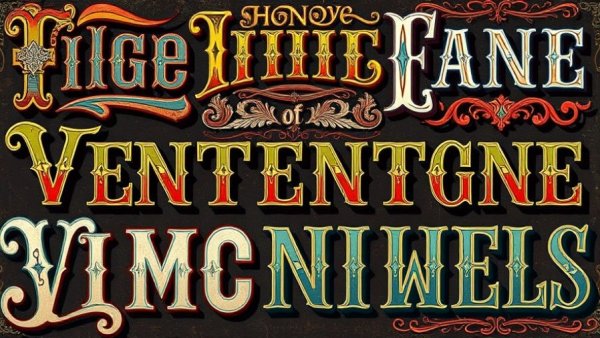
Unlock the Artistry of Vintage Fonts: Tips for Graphic Designers
Discover the Timeless Charm of Vintage Fonts
In today’s fast-paced digital world, the allure of vintage fonts remains strong. Graphic designers often seek ways to invoke nostalgia and charm in their projects, and nothing does this quite like the carefully crafted vintage typefaces from the Heritage Type Co. These fonts are not just designs; they evoke a rich history that appeals to clients wanting to stand out in a crowded market.
What Makes Vintage Fonts Essential?
The Vintage Font Bundle from Heritage Type Co. captures the heart of late 19th to early 20th-century typography, expertly crafted by artist Tobias Saul. These fonts aren't just beautiful; they come with an array of features such as alternate characters and ornamental graphics, which designers can mix and match to fit any creative vision. Whether for a bespoke wedding invitation or a unique business logo, the right vintage typeface can add personality and warmth to your designs.
Fonts in the Bundle
The bundle includes six distinct typefaces, each offering unique style elements:
1. Blackriver: Drawn from vintage packaging designs, creating an instant nostalgic feel.
2. Royal Signage: Inspired by vintage signage that was once a staple in city streets.
3. Old Alfie and Old Erika: Victorian-inspired fonts which pair elegantly together.
4. Brilon: Echoing the Art Deco period, perfect for a trendy touch.
5. Mirosa: A versatile font that boasts over 400 alternate characters for endless creative possibilities.
Get Creative with Logo Design
The Vintage Font Bundle doesn’t just stop at fonts. It comes with 25 ready-made logo templates and layouts tailored specifically for Adobe Illustrator, as well as over 200 ornamental elements that provide even further customization options. Designers can quickly create stunning visuals, whether for branding campaigns, product packaging, or digital media needs. As any seasoned graphic designer knows, having the right tools at your disposal can make all the difference in the creative process.
Craft Your Own Custom Artwork
If you want to see the fonts in action, check out Tobias Saul's tutorial on crafting ornate logos from start to finish. This step-by-step guide demonstrates how to use the Royal Signage and Old Erika fonts, incorporating various ornamental graphics. Not only does this provide a roadmap for aspiring designers, but it also showcases the unique potential these fonts possess.
Your Next Steps in Design
When it comes to graphic design, especially if you are a small local business looking to make your mark, the details matter. Vintage fonts are an emblem of artistry that can provide your brand with a distinct personality. By utilizing tools such as the Heritage Type Vintage Font Bundle, you elevate your design work, capturing the attention and admiration of your target audience.